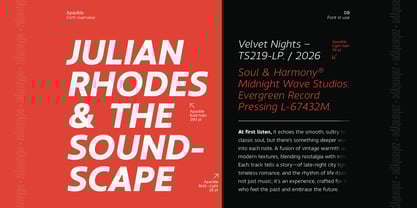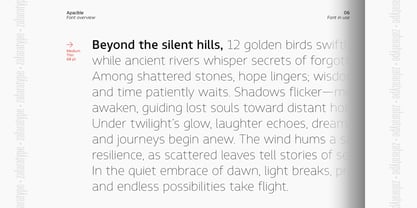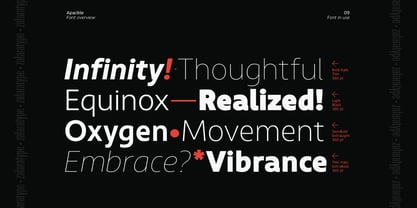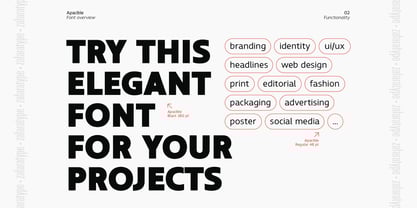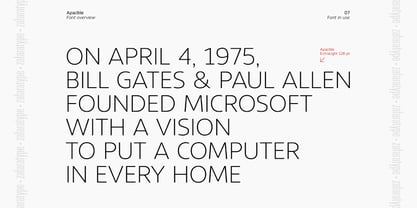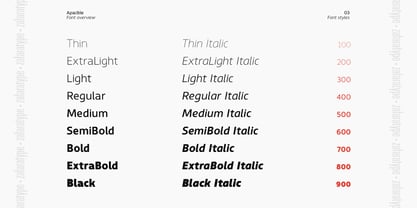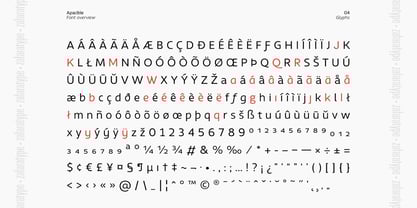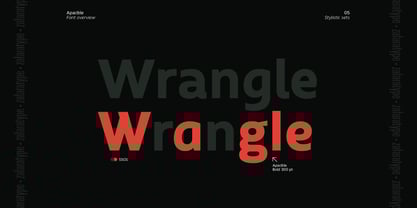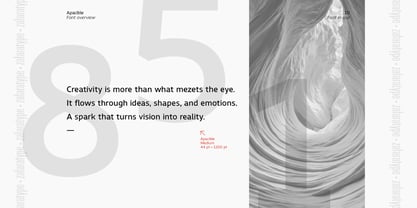
Apacible
The Apacible Font Family was designed by Zohan Nur Muchlis and published by Zafara Studios. Apacible contains 18 styles and family package options. More about this family
Apacible is a versatile geometric sans serif family that brings a clean, modern, and professional touch to any design project. Featuring 18 styles (9 weights plus matching italics), this font family is perfect for everything from bold headlines and eye-catching branding to refined editorial layouts and user-friendly interfaces.
Key Features
- Wide Range of Weights: From Thin to Black, each weight includes its own italic style, ensuring maximum flexibility for both display and text usage.
- Geometric Elegance: Smooth curves and precise lines give Apacible a sleek, contemporary look while maintaining excellent legibility in any size.
- Multilingual Support: Equipped with extensive character sets, accents, and symbols, Apacible allows you to communicate effectively with global audiences.
- OpenType Features: Stylistic alternates and other typographic enhancements give you creative freedom to experiment with unique letterforms.
- Highly Adaptable: Ideal for a wide array of applications—branding, editorial design, packaging, advertising, social media, UI/UX, and more.
Whether you need a strong statement for headlines or a polished body text, Apacible’s balanced proportions and generous spacing make it easy to read and visually appealing. Elevate your projects with a contemporary typeface that offers both functionality and flair—choose Apacible for a seamless blend of modern minimalism and timeless elegance.